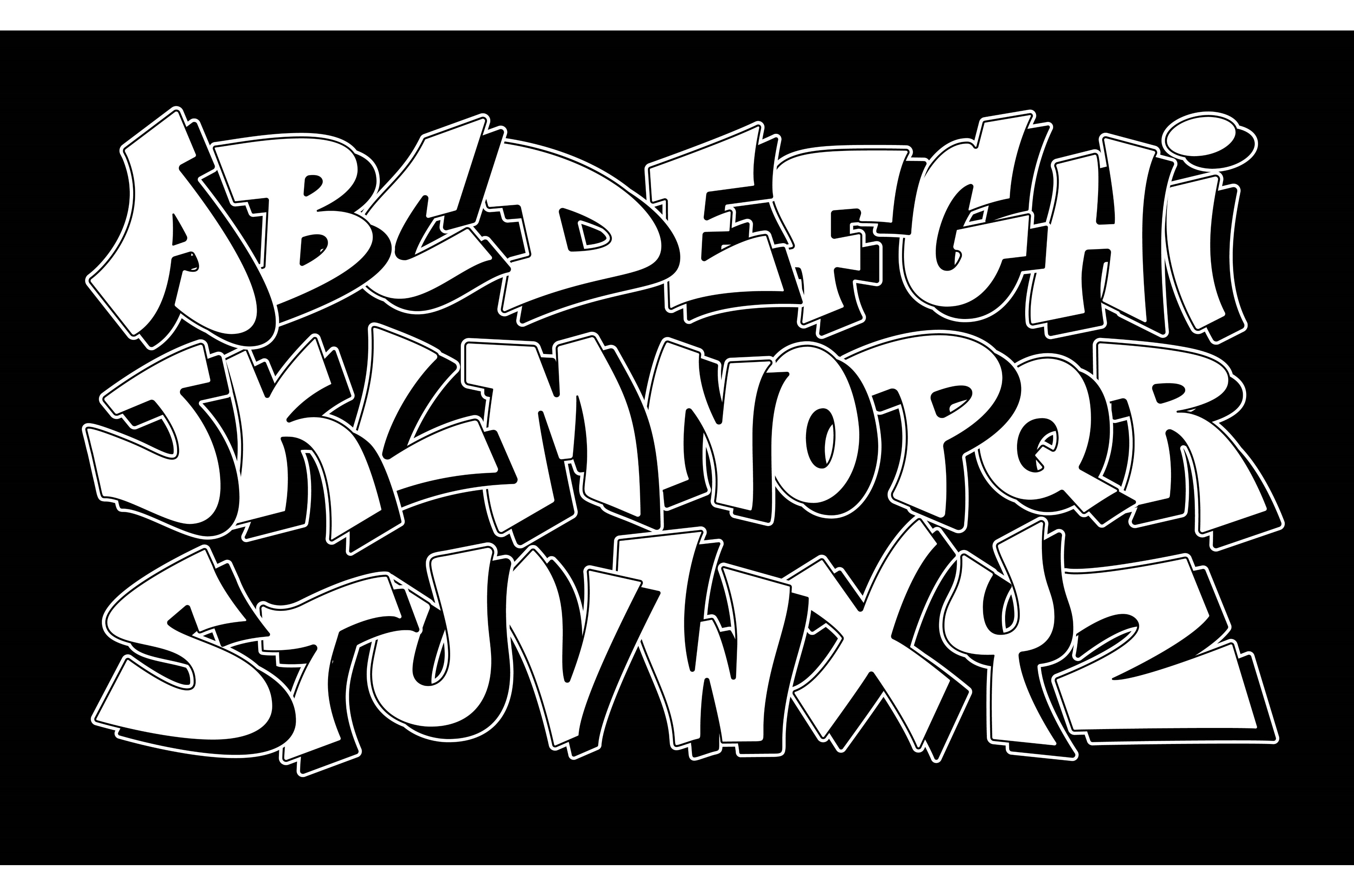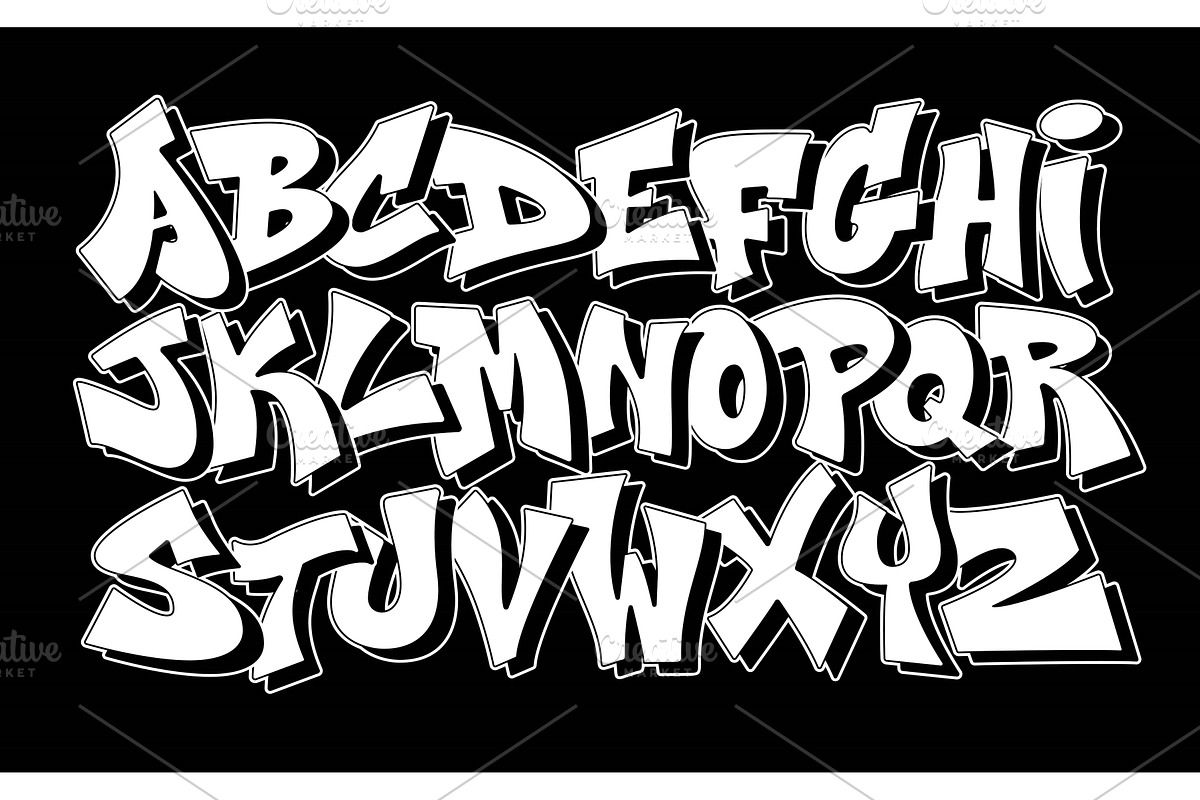
Street art font. Urban graffiti
Street art font. Urban graffiti alphabet, edgy and modern hand drawn typography, outlined capital letters with 3D shadow for hip hop street culture inspired lettering design vector set.